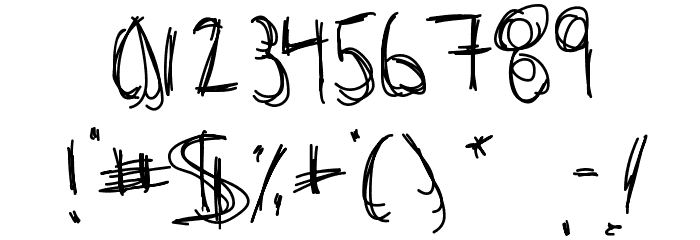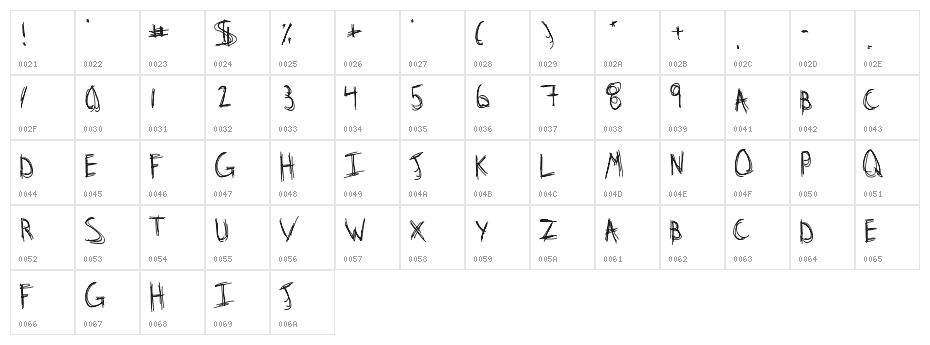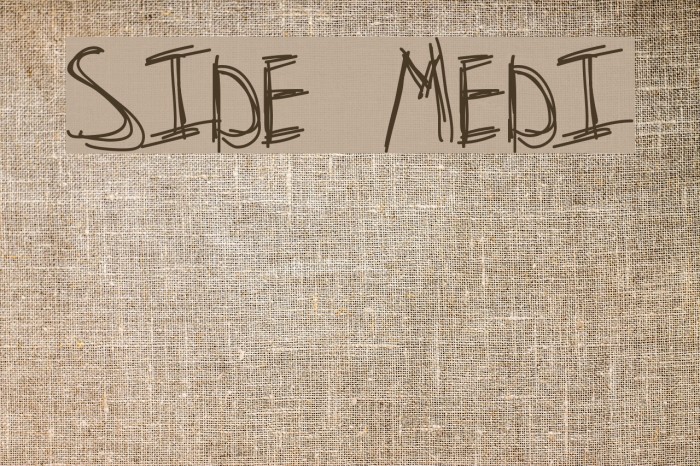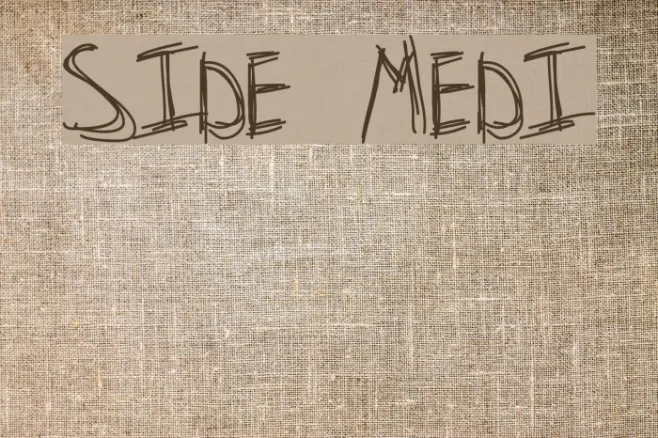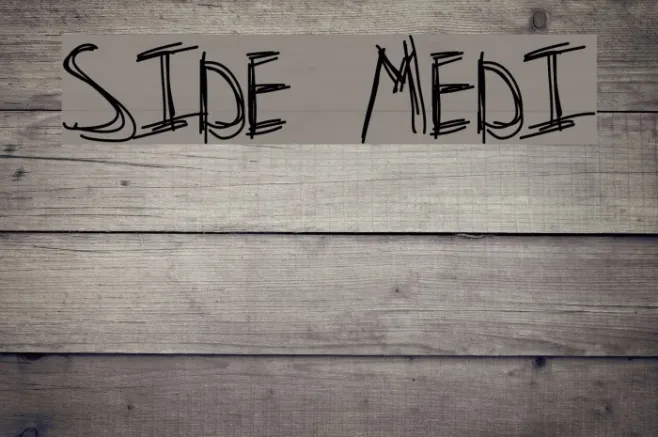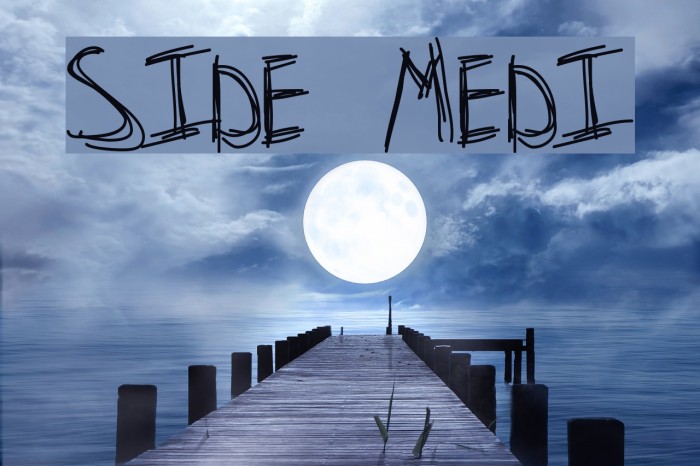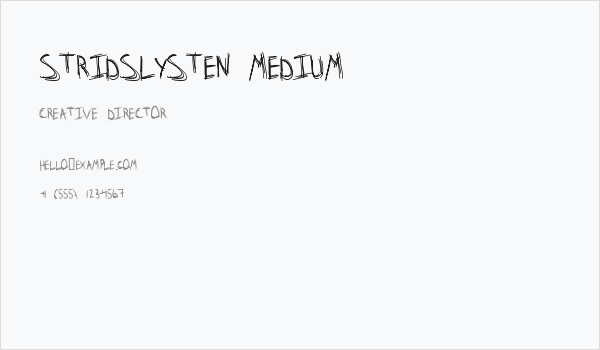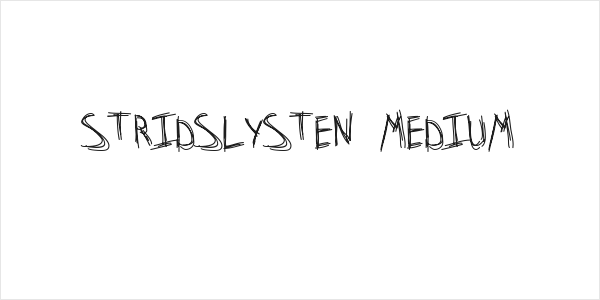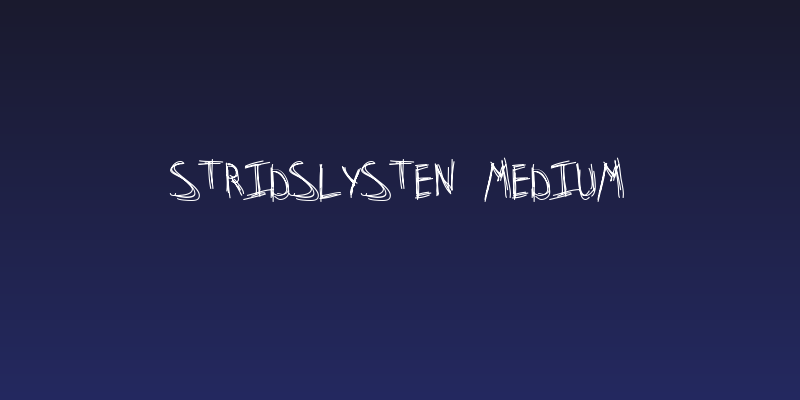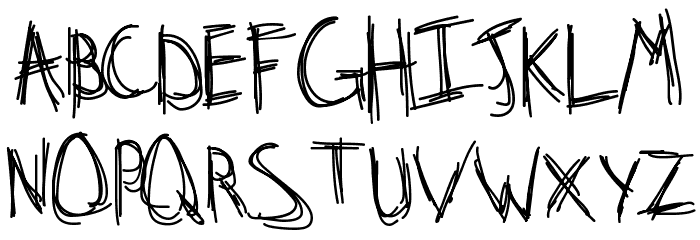
Stridslysten Medium Font
Stridslysten Medium Description
This font features a bold, hand-drawn style with a rough, sketch-like appearance. Each character is uniquely crafted, giving an energetic and dynamic feel. The strokes are uneven, with varying thickness, adding a sense of spontaneity and creativity. The uppercase and lowercase letters maintain a consistent style, while the numerals and special characters complement the overall aesthetic. This font is ideal for projects that require a personal, artistic touch.
| Proposed Projects | Ideal for artistic projects, posters, album covers, and creative branding. |